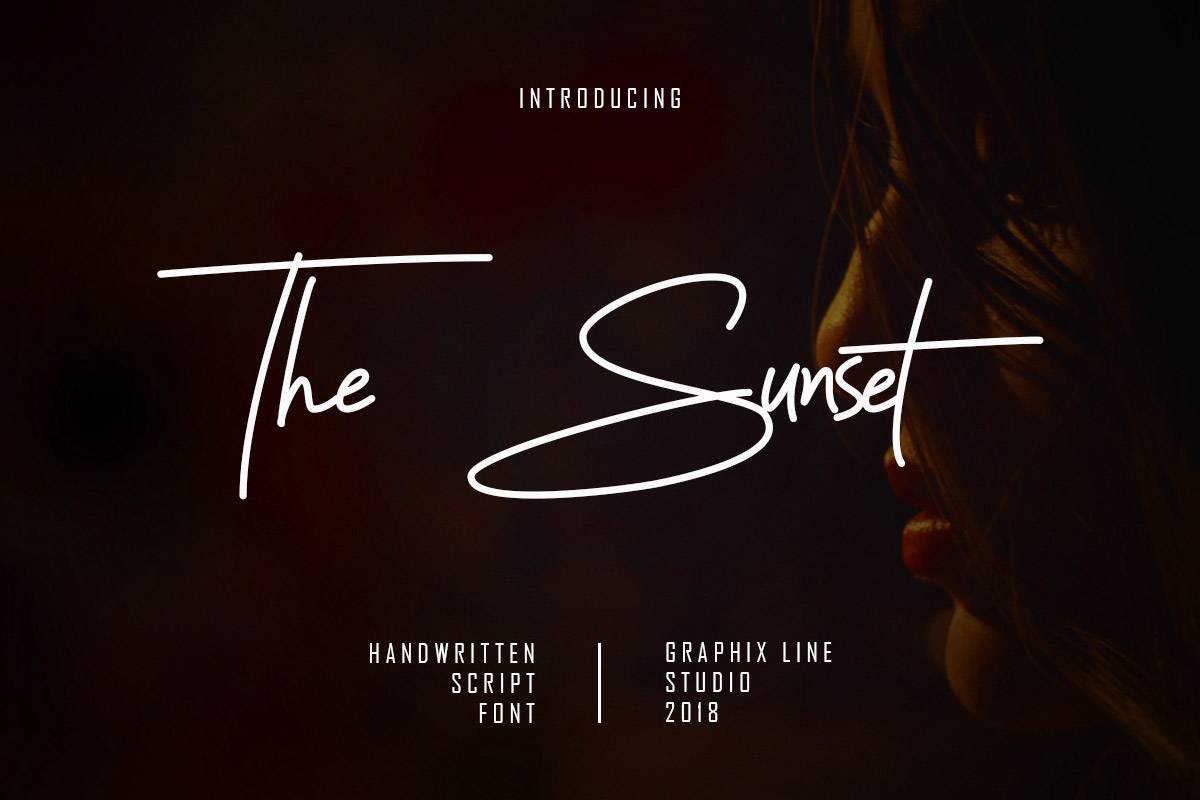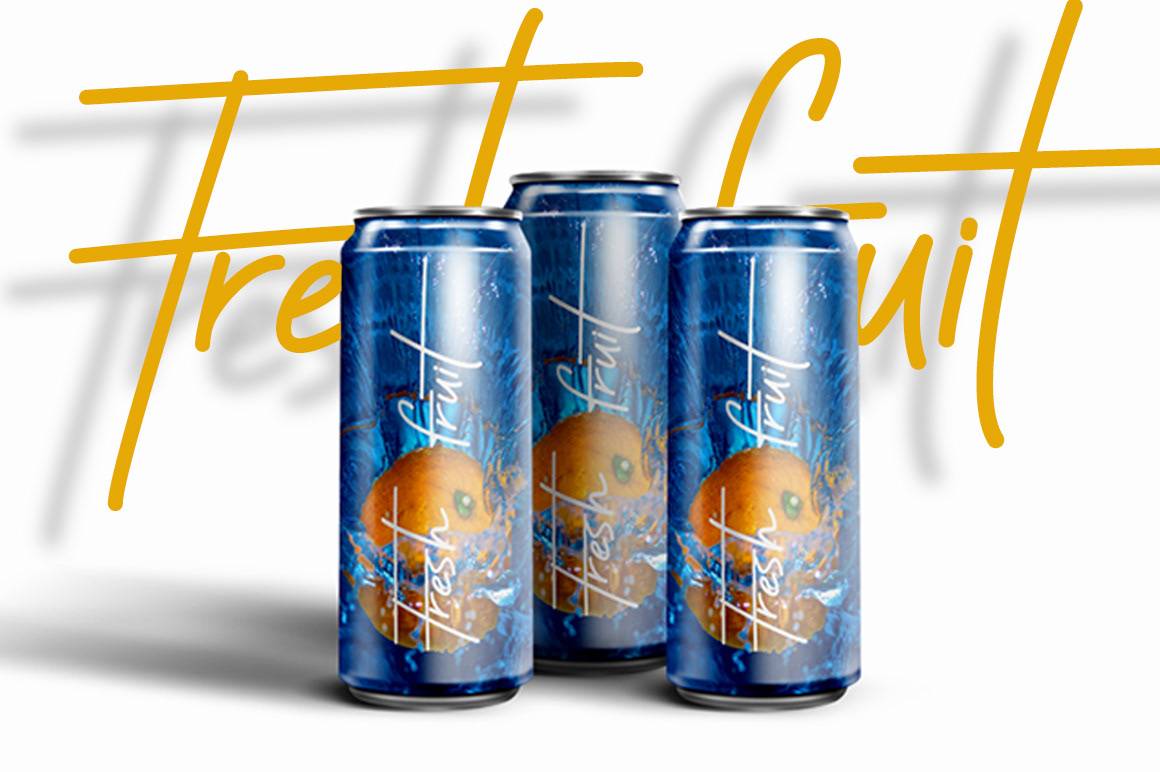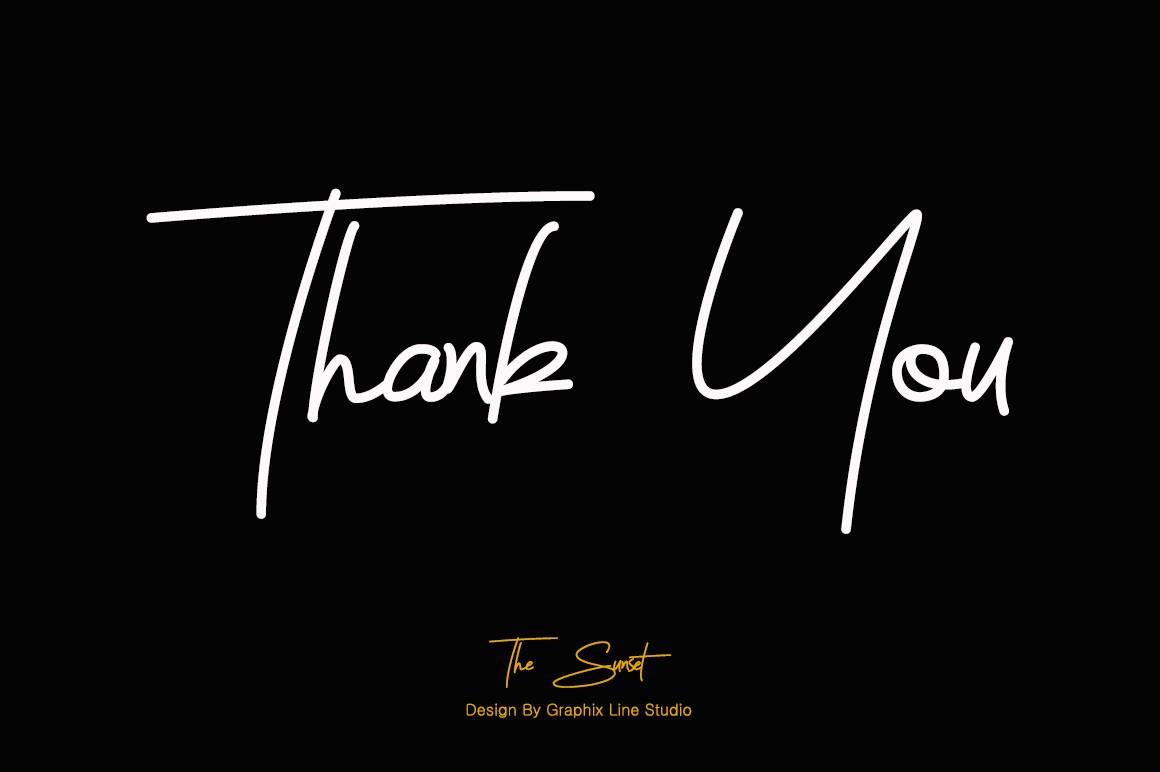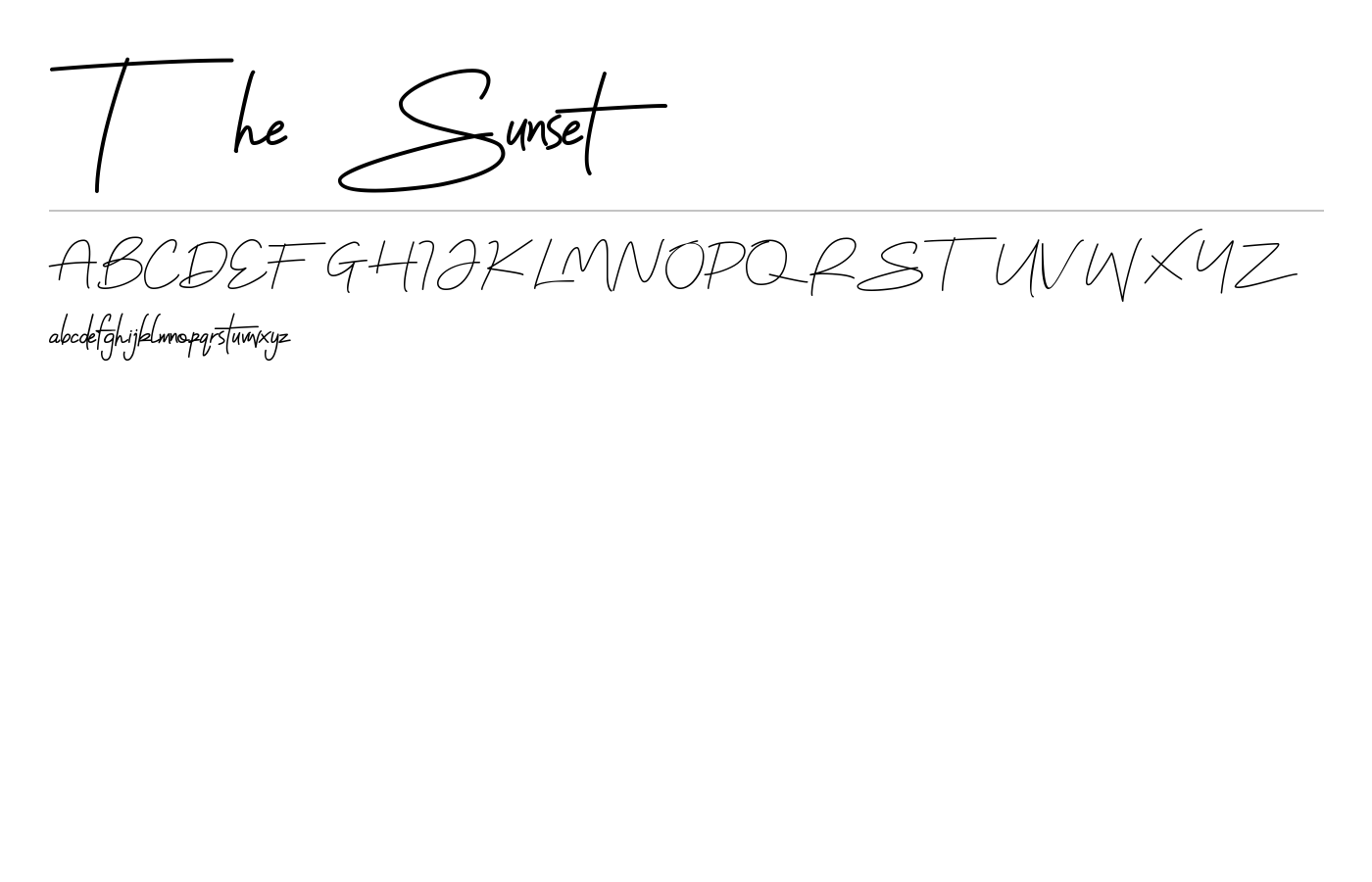
Sunset Signature is a delicate, handwritten script font that captures a casual yet elegant feel with its thin, flowing strokes and airy letterforms. Its light weight and natural, slightly irregular lines make it perfect for personal branding, invitations, and creative projects that seek a modern, intimate touch. This font works beautifully for logos, social media graphics, and headlines where a stylish, spontaneous look is desired.